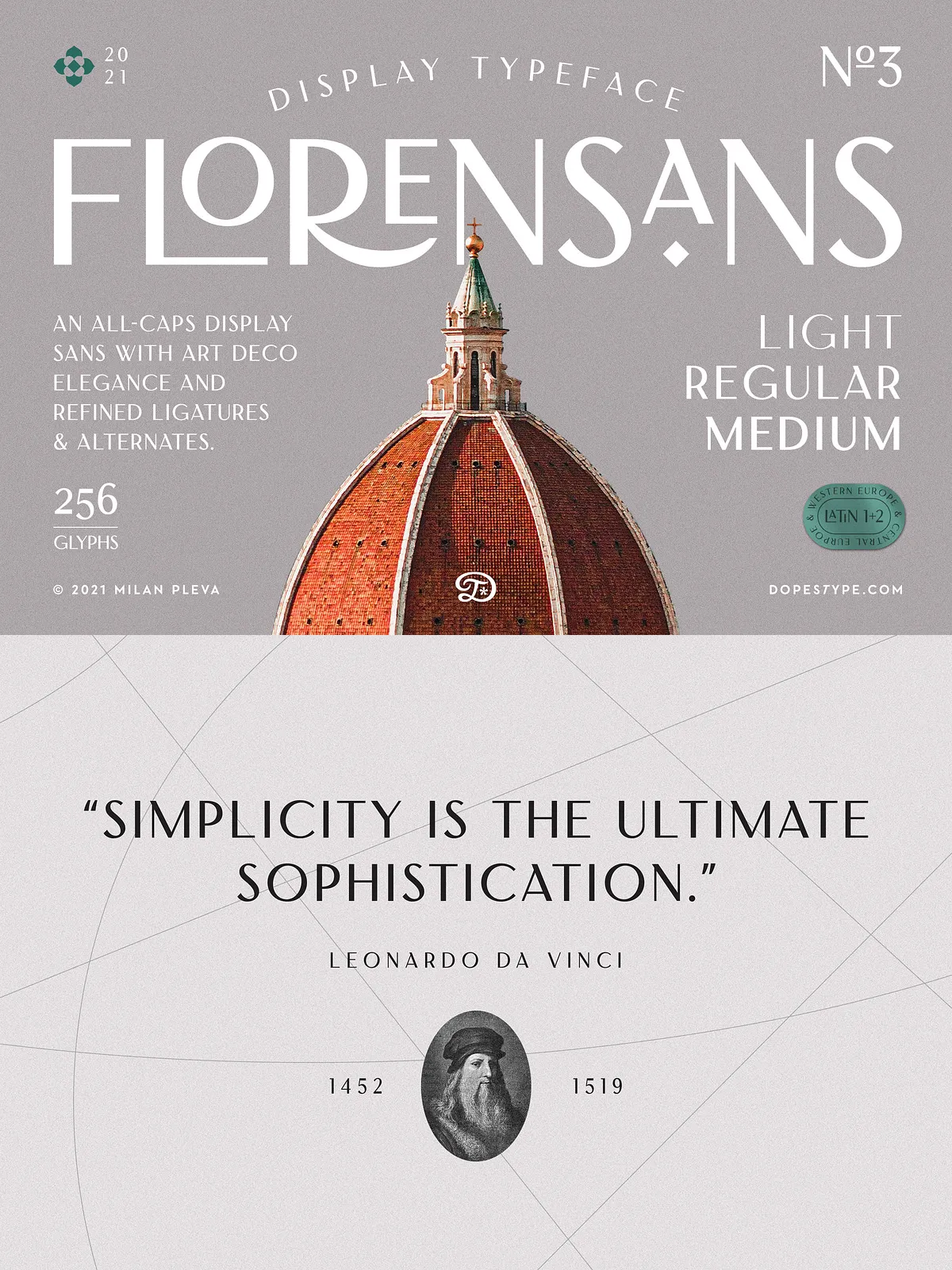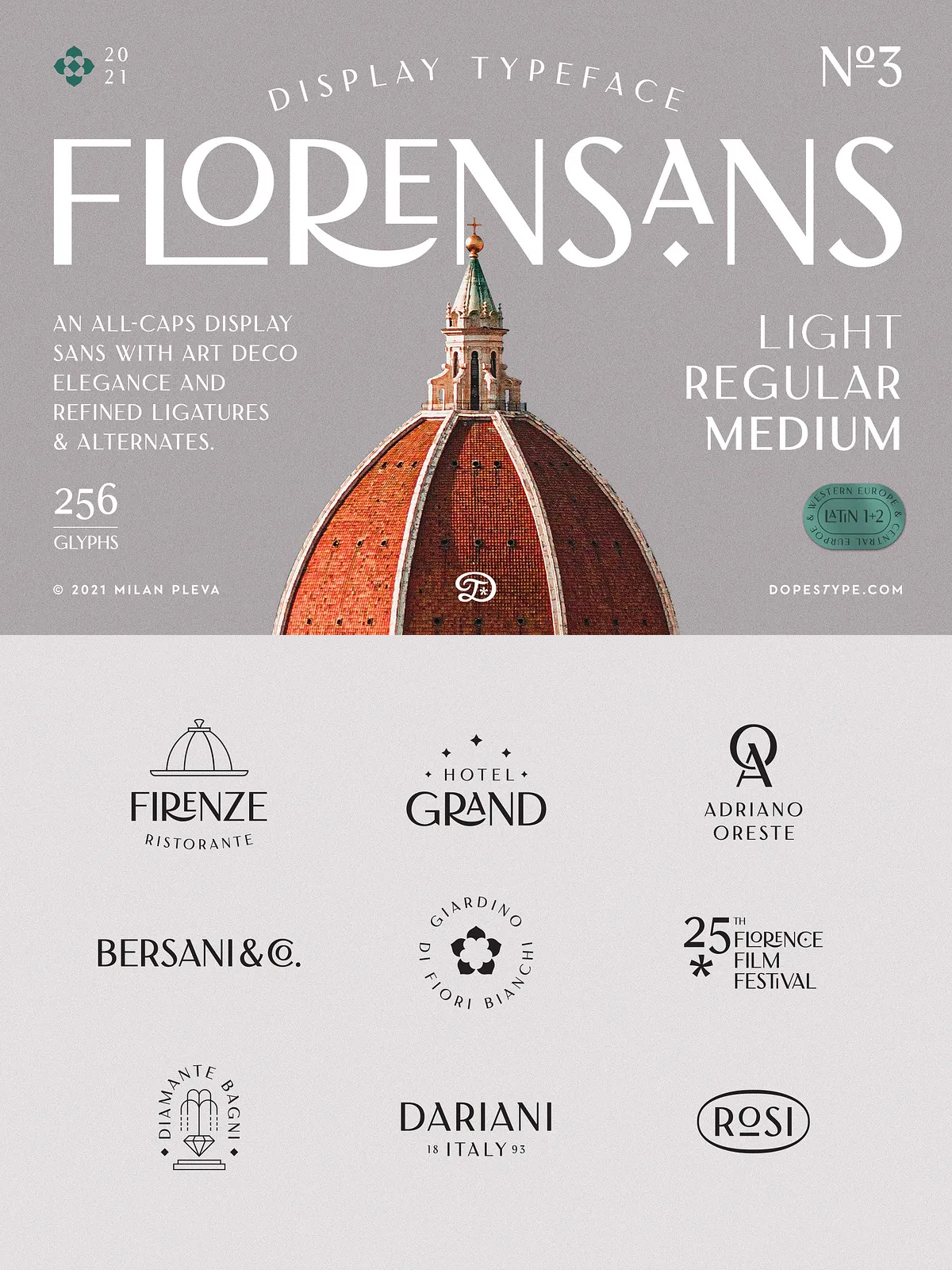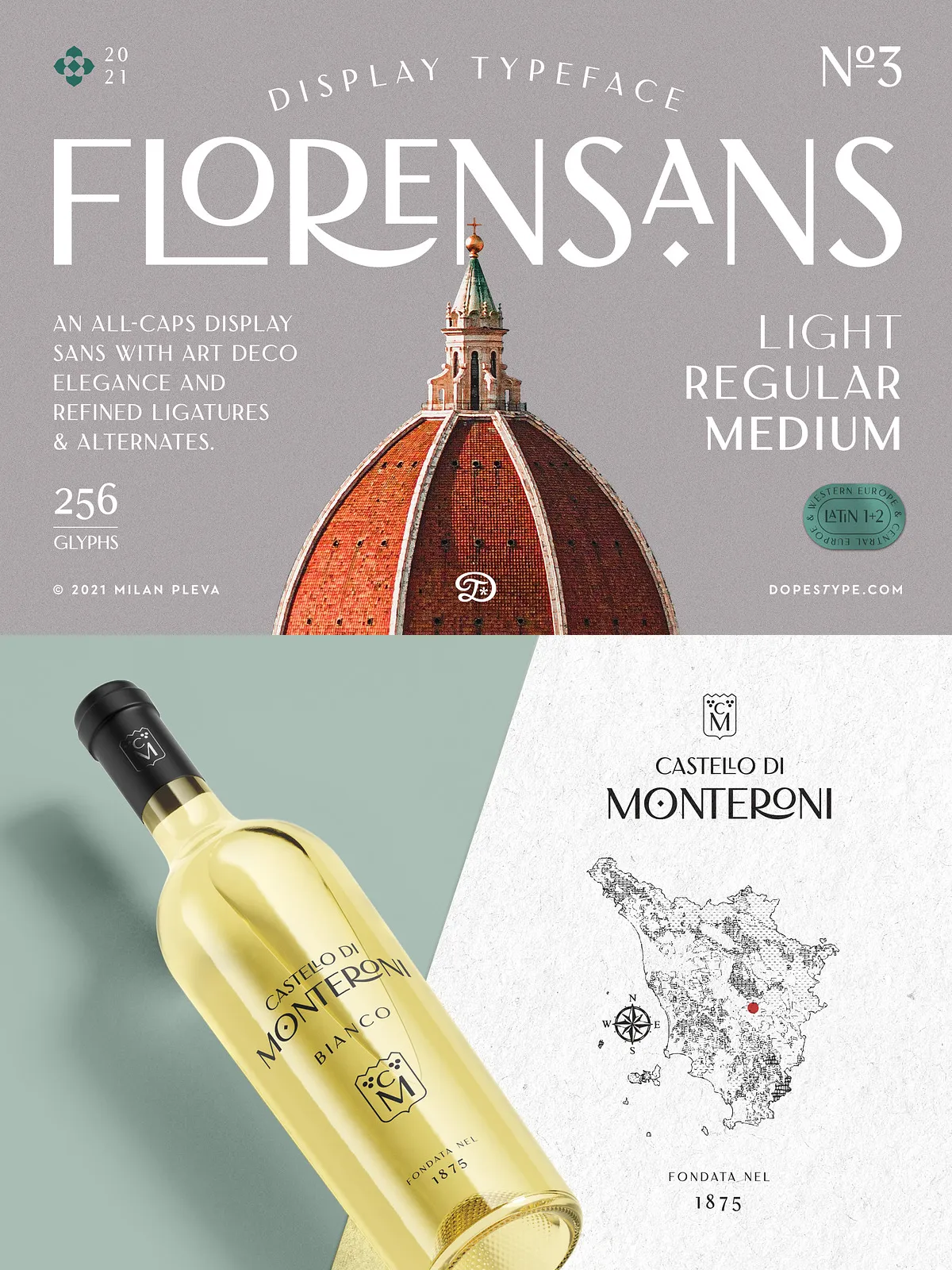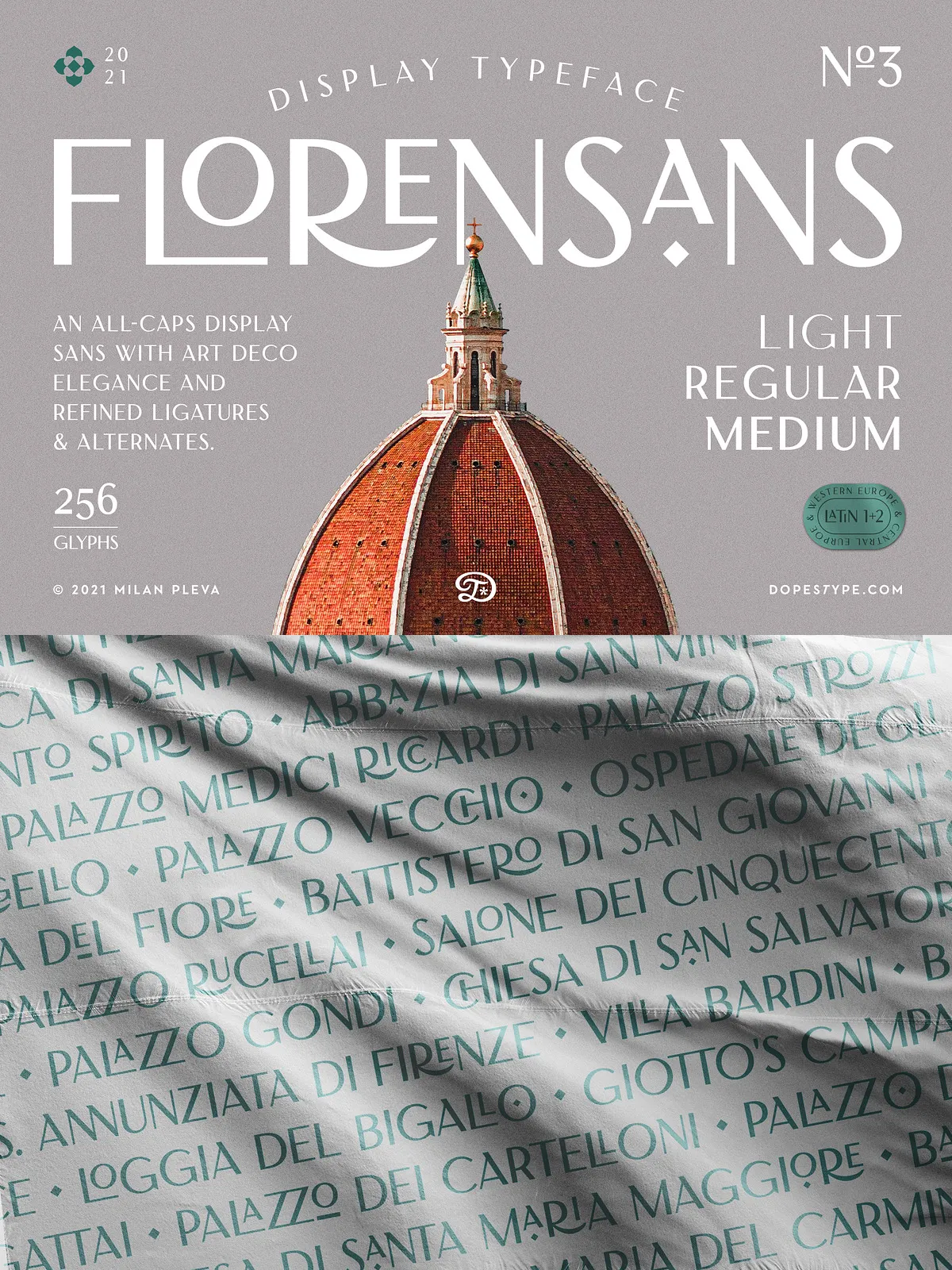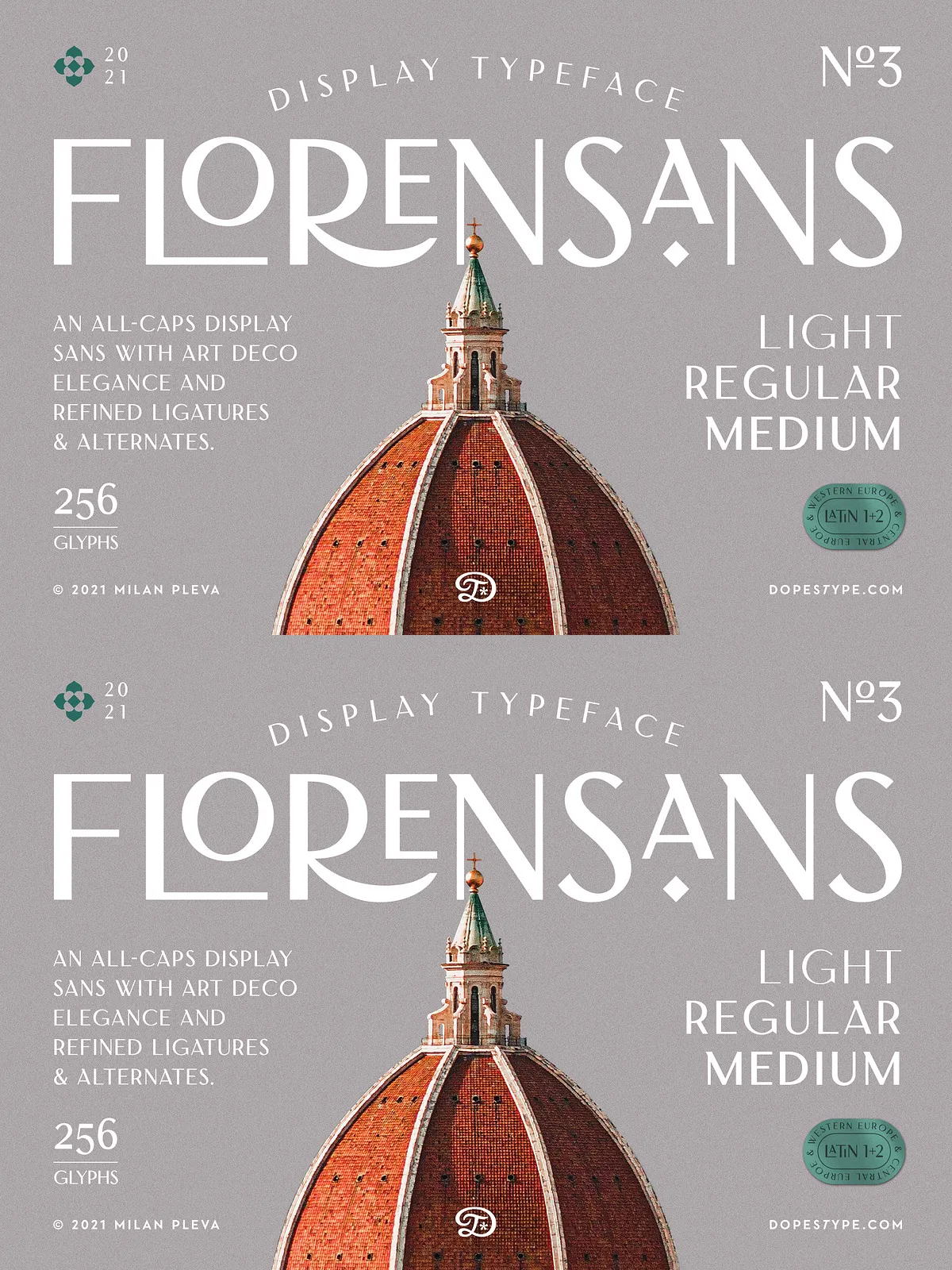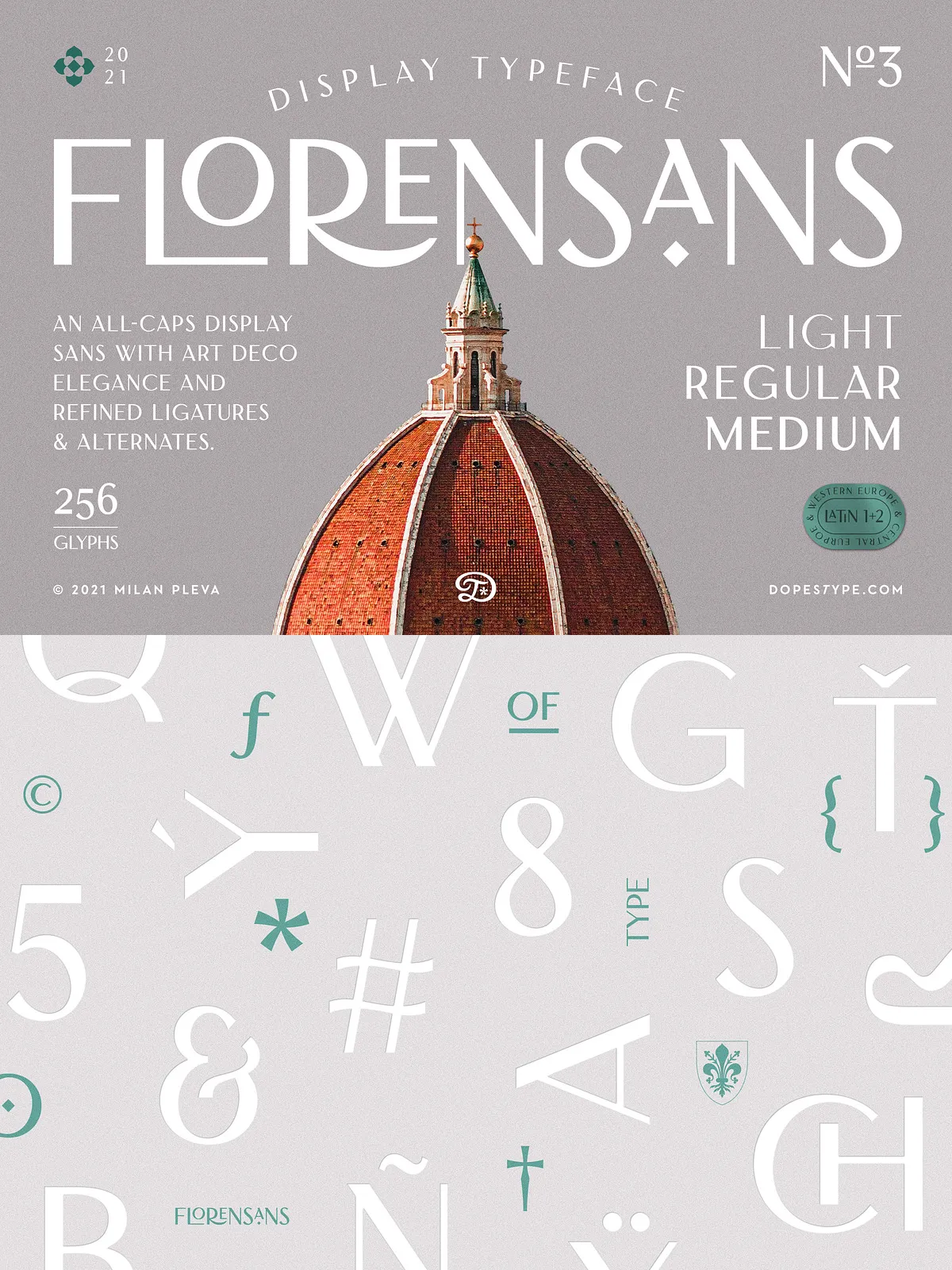
Florensans is an all caps display sans serif typeface in elegant & modern style with ligatures,
special alternative glyphs and old style figures. The Florensans family contains three weights: Light, Regular and Medium. Florensans is ideal for headlines, headers, logos, labels, packaging, postcards, presentations, magazines, invitations, etc.
FEATURES
3 Weights – Light, Regular and Medium
Basic latin alphabet A-Z
64 Ligatures & Alternates
56 Accented characters
Numbers, Punctuation, Currency, Symbols, Math symbols & Diacritics
Old style figures
LANGUAGE SUPPORT
Latin 1 + Latin 2
Western Europe and Americas:
Afrikaans, Basque, Catalan, Danish, Dutch, English, Faroese, Finnish, French,
Galician, German, Icelandic, Irish, Italian, Norwegian, Portuguese, Spanish and Swedish.
Latin-written Slavic and Central European languages:
Czech, German, Hungarian, Polish, Romanian, Croatian, Slovak, Slovene.